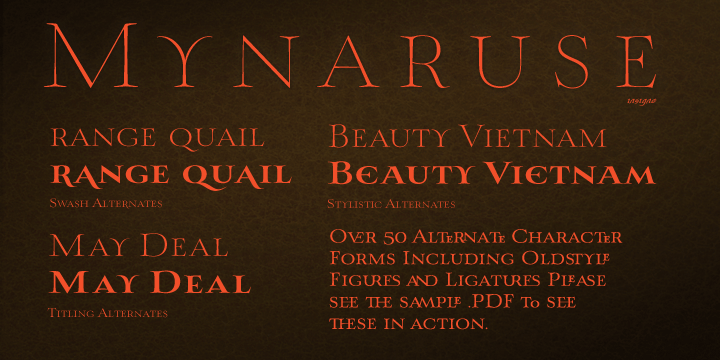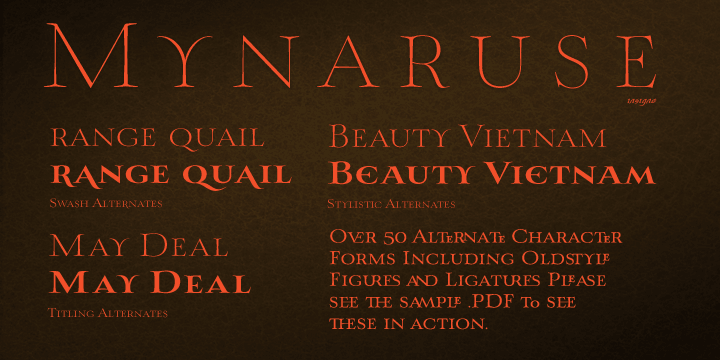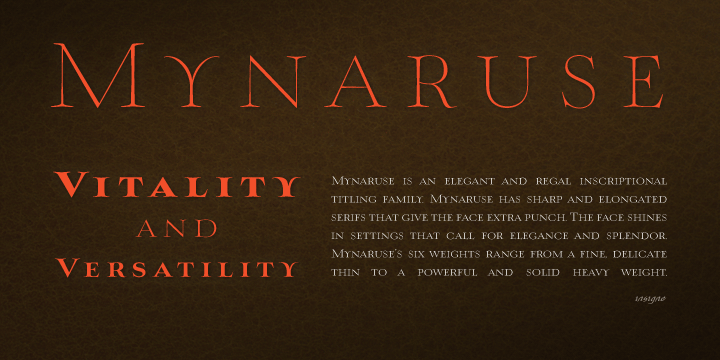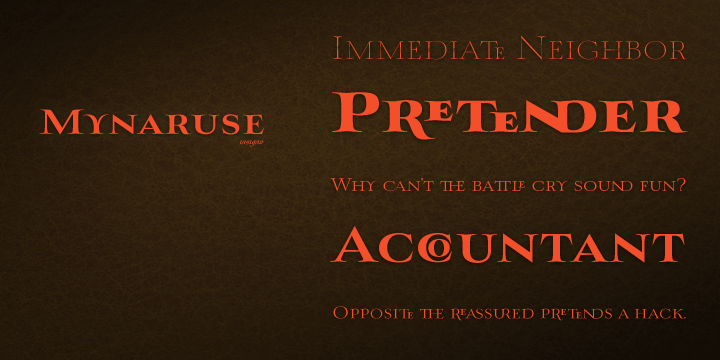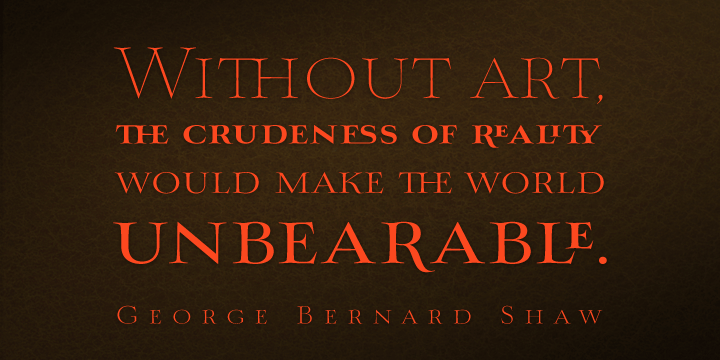
Mynaruse is a display serif font family. This typeface has six styles and was published by Insigne Design.
Mynaruse is an elegant and regal roman inscriptional titling family. Mynaruse has sharp and elongated serifs that give the face extra punch. The face shines in settings that call for elegance and splendor. Mynaruse’s six weights range from a fine, delicate thin to a powerful and solid heavy weight.
Mynaruse includes many useful OpenType features, including a set of swash alternates, alternate titling forms, ligatures and miscellaneous alternates.
OpenType-capable applications such as Quark or the Adobe suite can take full advantage of the automatically replacing ligatures and alternates. This family also includes the glyphs to support a wide range of languages.